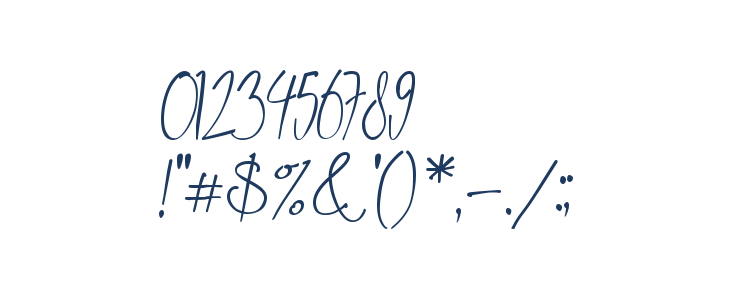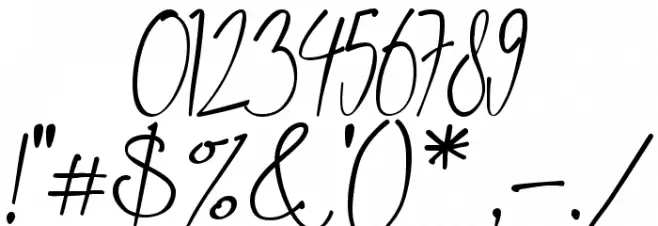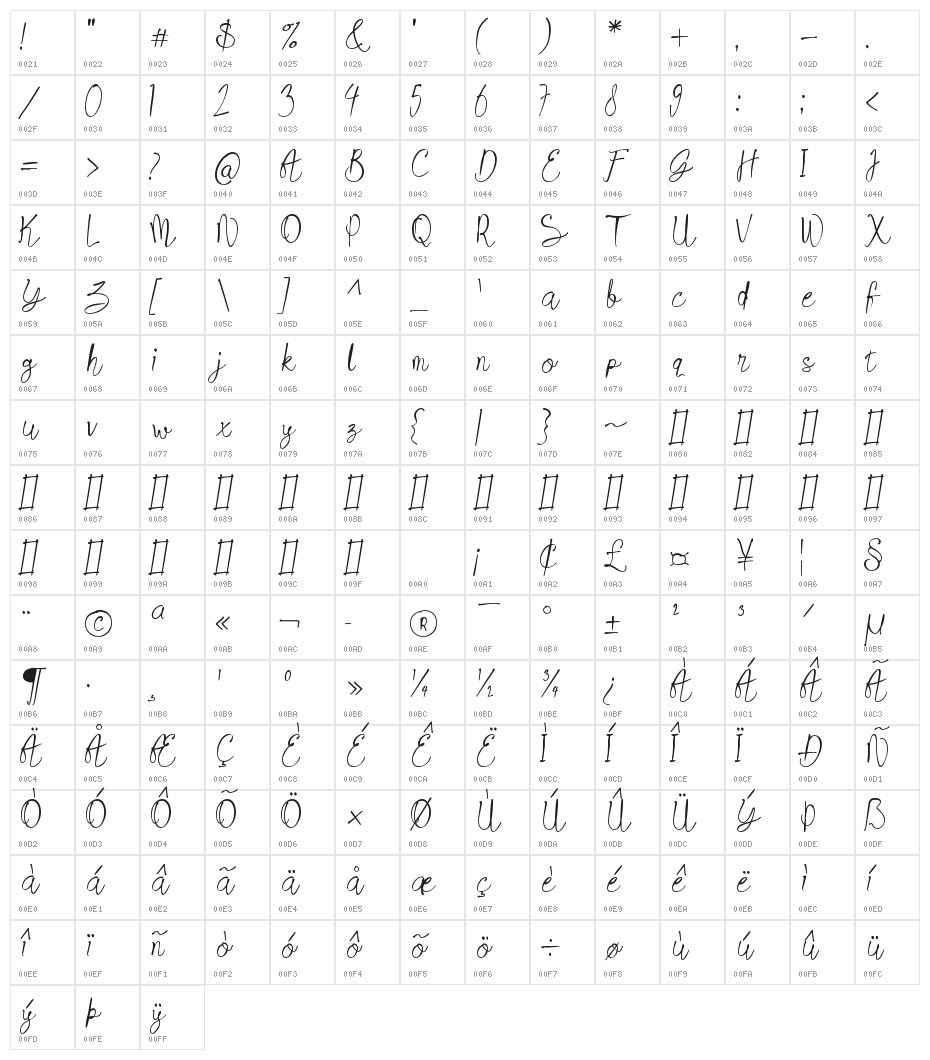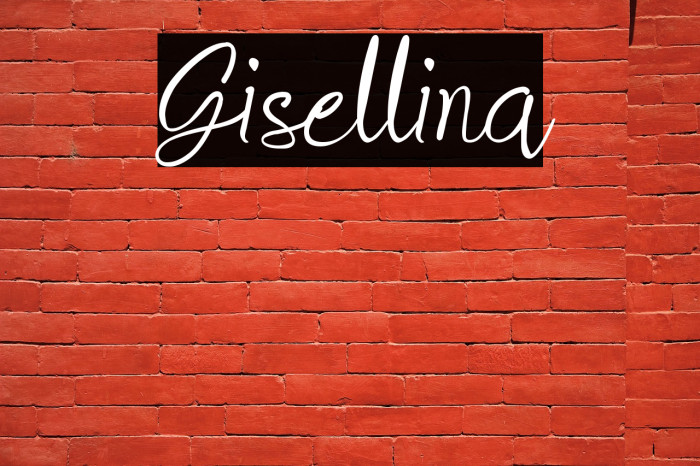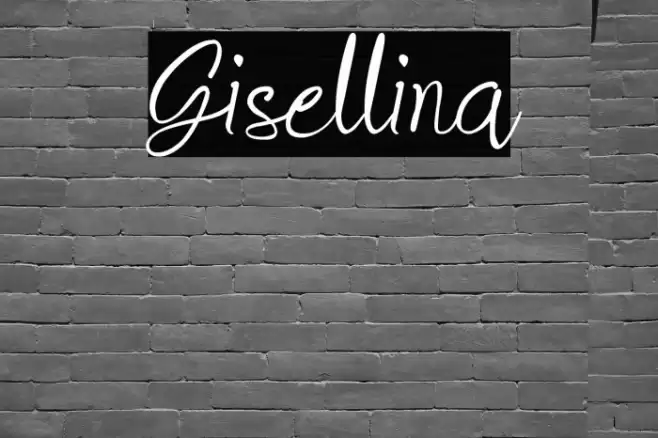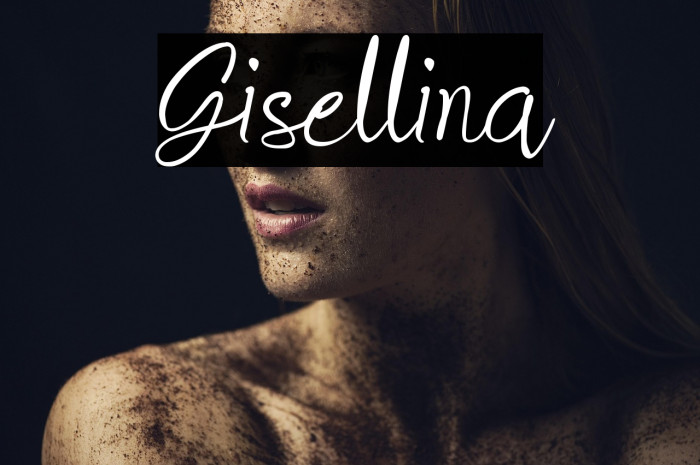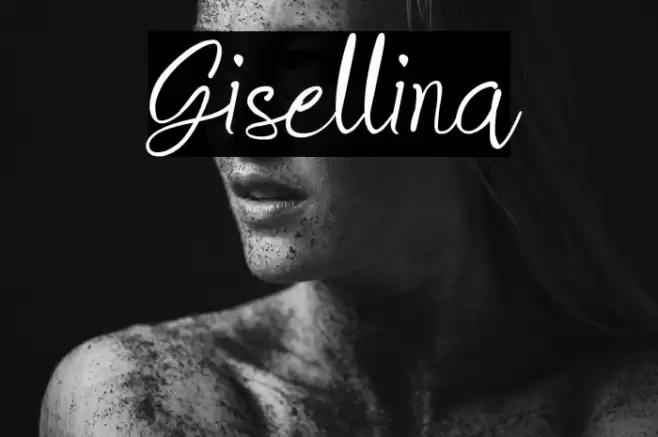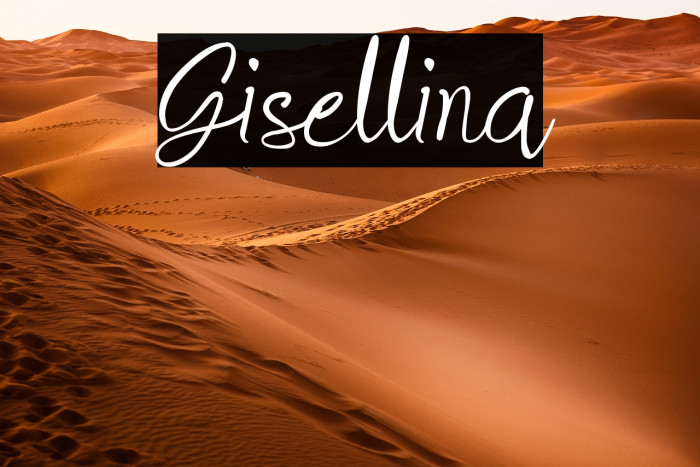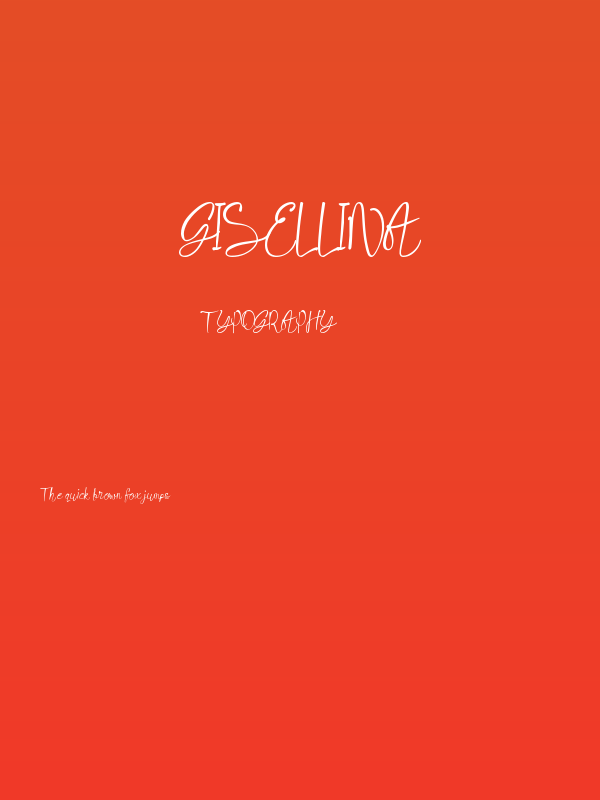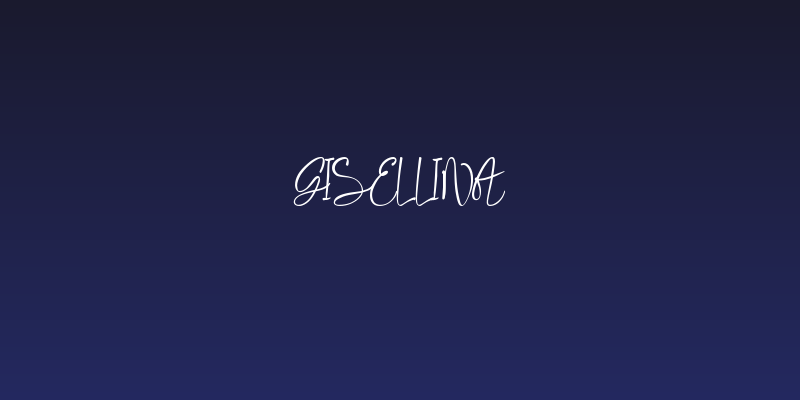
Gisellina Font
Gisellina Description
This font features an elegant and flowing script style, characterized by its smooth, cursive letterforms that mimic the fluidity of handwriting. The uppercase letters are bold and slightly slanted, giving a dynamic and lively appearance. The lowercase letters maintain a consistent flow, with loops and curves that enhance its graceful aesthetic. The numbers are designed with the same cursive flair, ensuring uniformity across all characters. Special characters are integrated seamlessly, maintaining the font's overall cohesive look. This font exudes a sense of sophistication and charm, making it suitable for projects that require a personal and artistic touch.
| Overall Style | Elegant, Artistic |
| Proposed Projects | Ideal for wedding invitations, greeting cards, branding projects, and any design that requires a personal, artistic touch. |